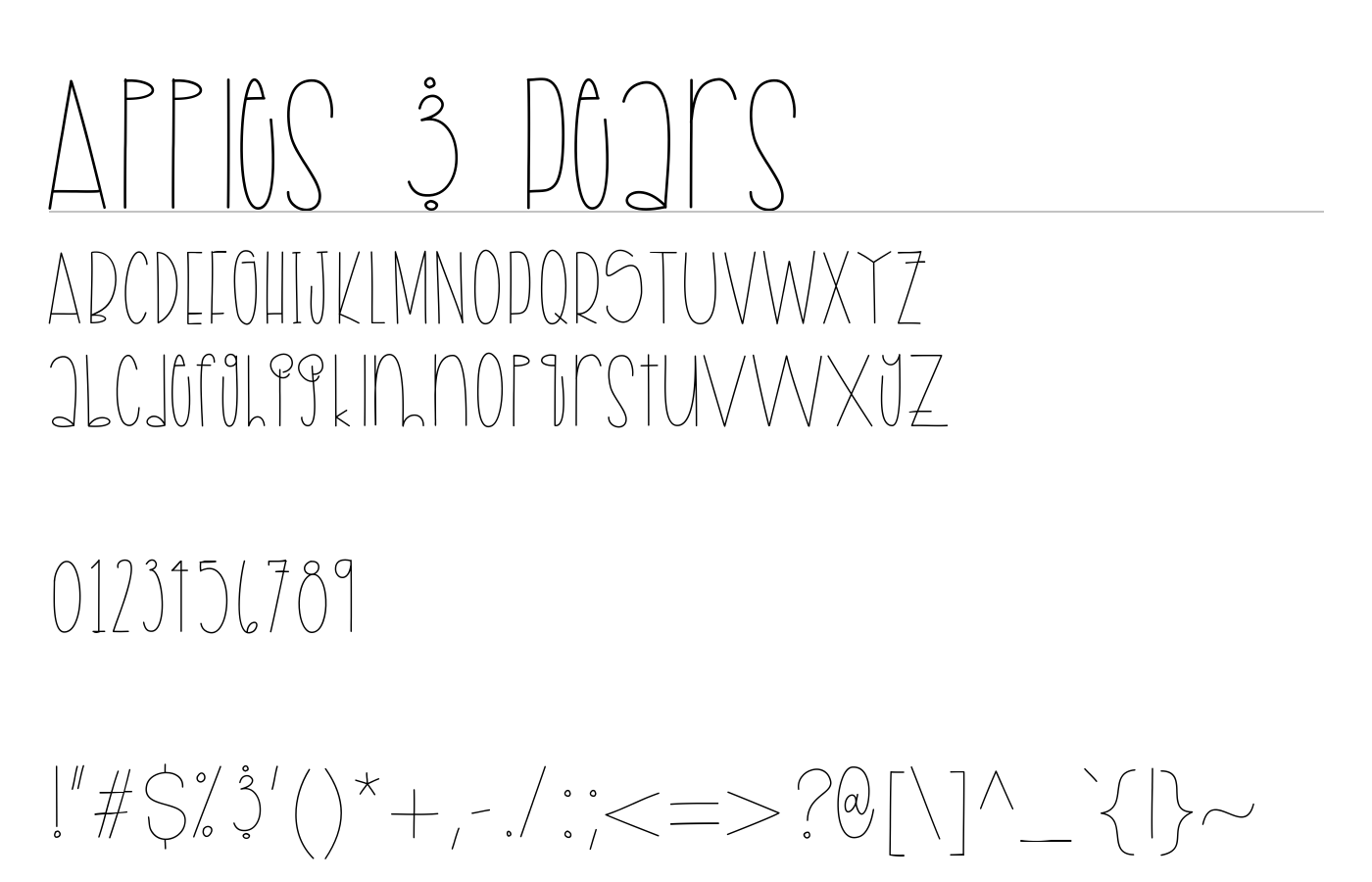
Apples & Pears is a whimsical, hand-drawn sans serif font featuring very thin, elongated letterforms with playful curls and loops on select characters. Its delicate, airy style and quirky details create a lighthearted, creative vibe perfect for informal designs, children’s books, and artistic branding. This font works best for decorative headlines or logos where a unique, approachable personality is desired.
Apples & Pears Font